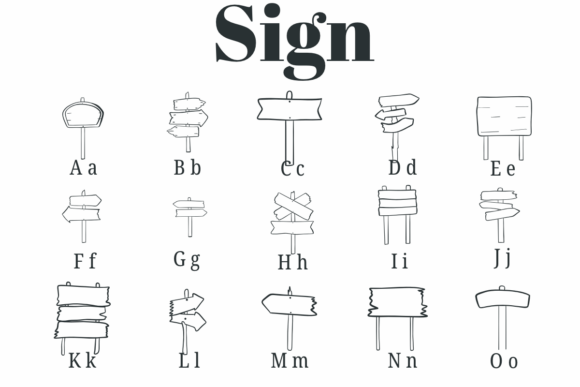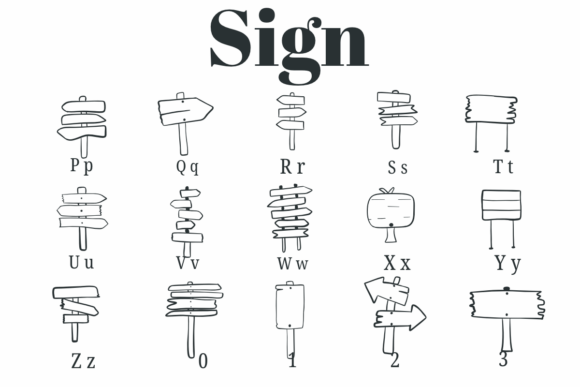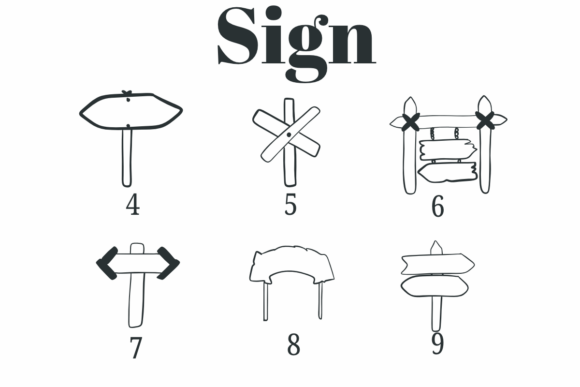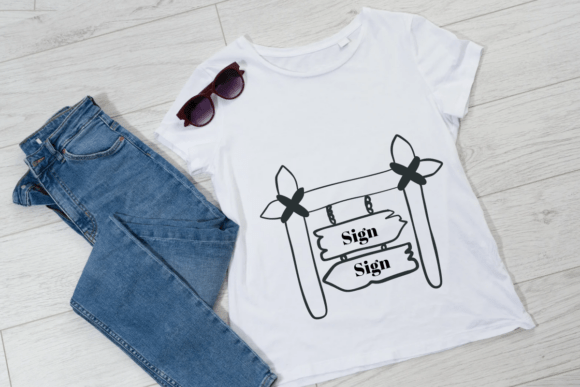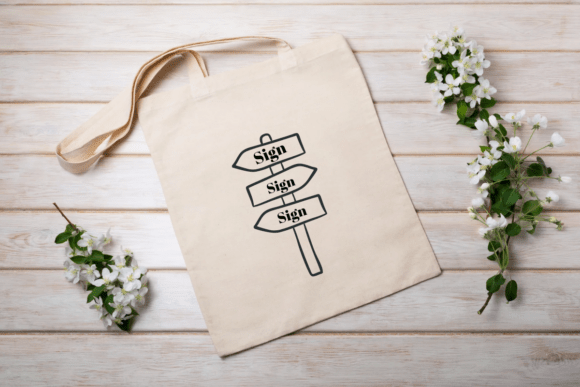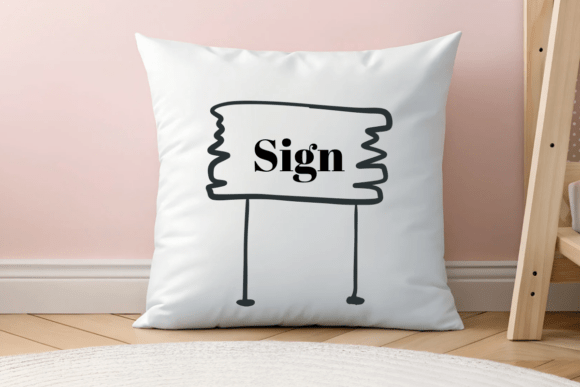
Introduction to Sign Dingbats Font
Have you ever been on a creative project where you wanted to transport your audience to a serene forest or a quaint mountain trail? I recall a project where I needed to design a map for a wedding that took place in a secluded outdoor venue. I wanted the map to feel like a handcrafted treasure, inviting guests to embark on an adventure. That’s when I discovered Sign Dingbats Font – a collection of charming illustrations that made my design come alive.
As a designer, you’re always on the lookout for the perfect design resource to elevate your projects. Sign Dingbats Font is that gem. With its versatile array of hand-drawn wooden signposts, directional arrows, and notice boards, you can add a touch of rustic charm to any creative project. Whether you’re working on a free download, a website, or a high-quality design, these illustrations are sure to bring a unique, organic personality to your work.
Key Features of Sign Dingbats Font
- High-quality design resource perfect for creative projects, offering a unique and eye-catching aesthetic.
- Includes a wide range of sign dingbats, ideal for use in signage, labels, and other visual communications.
- Perfect for designers and artists looking for a design resource that adds a touch of creativity to their work.
Honest Review: Sign Dingbats Font
As a designer, I’m always on the lookout for unique design resources to elevate my creative projects. Recently, I stumbled upon the Sign Dingbats Font, and I’m excited to share my honest review.
- ✨ High-quality vector graphics: The Sign Dingbats Font offers crisp, high-quality vector graphics that are perfect for printing and digital use.
- ✨ Transparent background: The font comes with a transparent background, making it easy to combine with other design elements.
- ⚠️ Limited customization options: While the font is versatile, it’s not as customizable as some other design resources.
- ⚠️ Not ideal for complex compositions: The font is best used for simple designs, as it can become overwhelming when used in complex compositions.
Overall, I’m impressed with the Sign Dingbats Font’s potential for enhancing creative projects. With a little creativity, it can become a valuable design resource. Just be mindful of its limitations, and you’ll be well on your way to creating stunning designs.
Sign Dingbats Font is commonly used in various design projects, including infographics, posters, and social media graphics. It’s also used in logo design, branding, and packaging design. The font’s versatility makes it a valuable design resource for any creative project.